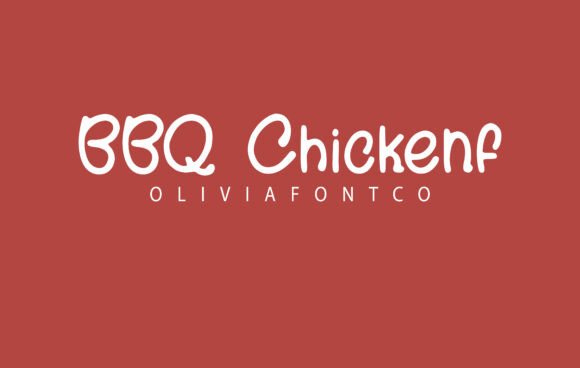
Introducing BBQ Chickenf Font: The Ultimate Handwritten Font for Creative Projects
Are you looking for a font that can add a touch of romance and authenticity to your creative projects? Look no further than BBQ Chickenf Font, an expertly designed handwritten font that is sure to become a true favorite. With its legible and versatile design, this font is perfect for a wide range of applications, from magazine headlines and social media posts to branding, wedding invitations, and more.
What is BBQ Chickenf Font?
BBQ Chickenf Font is a unique and authentic handwritten font that has been carefully crafted to bring a romantic touch to your creative projects. Its elegant and flowing design makes it perfect for use as a title or body text, and its legibility ensures that your message will be conveyed clearly and effectively.
Key Features of BBQ Chickenf Font
- Authentic Handwritten Design: BBQ Chickenf Font features an authentic handwritten design that is sure to add a personal touch to your creative projects.
- Romantic Touch: With its elegant and flowing design, this font is perfect for projects that require a romantic and sophisticated touch.
- Legible and Versatile: BBQ Chickenf Font is highly legible and versatile, making it perfect for use as a title or body text in a wide range of applications.
- Perfect for Creative Projects: This font is ideal for use in magazine headlines, social media posts, branding, wedding invitations, cards, and more.
Uses for BBQ Chickenf Font
BBQ Chickenf Font is a highly versatile font that can be used in a wide range of creative projects, including:
- Magazine Headlines: Use BBQ Chickenf Font to create eye-catching headlines for your magazine or publication.
- Social Media Posts: Add a touch of personality to your social media posts with this unique and authentic handwritten font.
- Branding: Use BBQ Chickenf Font to create a consistent and recognizable brand identity for your business or organization.
- Wedding Invitations: Add a romantic touch to your wedding invitations with this beautiful handwritten font.
- Cards and Stationery: Use BBQ Chickenf Font to create beautiful and personalized cards and stationery for any occasion.
Why Choose BBQ Chickenf Font?
There are many reasons why BBQ Chickenf Font is the perfect choice for your creative projects. Here are just a few:
- Unique and Authentic Design: BBQ Chickenf Font features a unique and authentic handwritten design that is sure to set your project apart.
- Highly Legible: This font is highly legible, making it perfect for use as a title or body text in a wide range of applications.
- Versatile: BBQ Chickenf Font is highly versatile and can be used in a wide range of creative projects.
Tips for Using BBQ Chickenf Font
Here are a few tips for getting the most out of BBQ Chickenf Font:
- Use it as a Title Font: BBQ Chickenf Font is perfect for use as a title font, and can be used to create eye-catching headlines and titles.
- Use it as a Body Text Font: This font is also highly legible and can be used as a body text font in a wide range of applications.
- Experiment with Different Colors and Textures: BBQ Chickenf Font looks great in a variety of colors and textures, so don’t be afraid to experiment and find the look that works best for your project.
- Pair it with Other Fonts: This font pairs well with a wide range of other fonts, so feel free to get creative and find the perfect combination for your project.
In conclusion, BBQ Chickenf Font is a unique and authentic handwritten font that is sure to add a romantic touch to your creative projects. With its legible and versatile design, this font is perfect for use in a wide range of applications, from magazine headlines and social media posts to branding, wedding invitations, and more. Whether you’re a designer or non-designer, BBQ Chickenf Font is a great choice for any project that requires a personal and sophisticated touch.